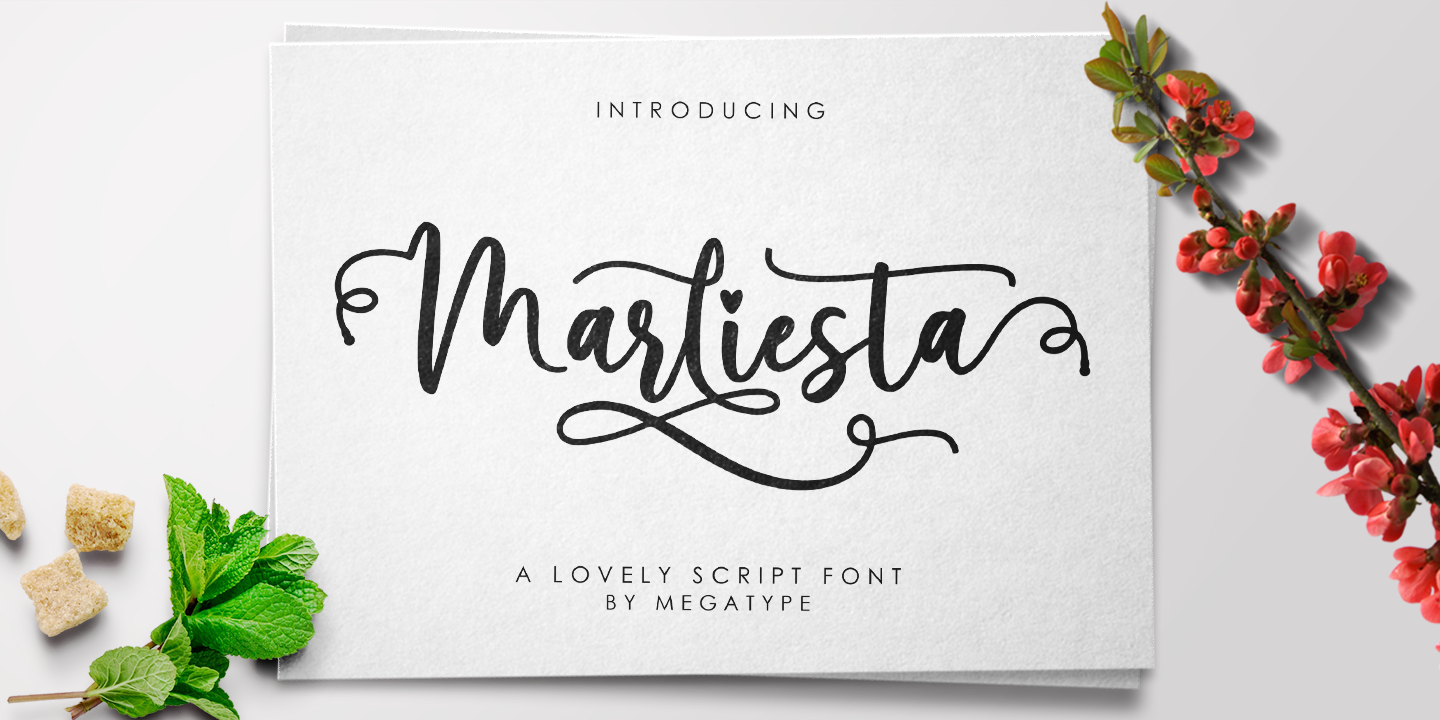
Marliesta
Marliesta is a brush script and modern calligraphy font family published by Mega Type.
Marliesta Script is a lovely script font created with a brush and ink, it’s bold with an irregular baseline. This font is casual and pretty with swashes. Can be used for various purposes. such as logo, product packaging, wedding invitations, branding, headlines, signage, labels, signature, book covers, posters, quotes and more.